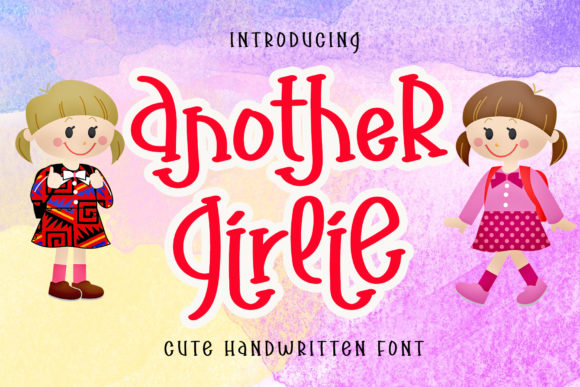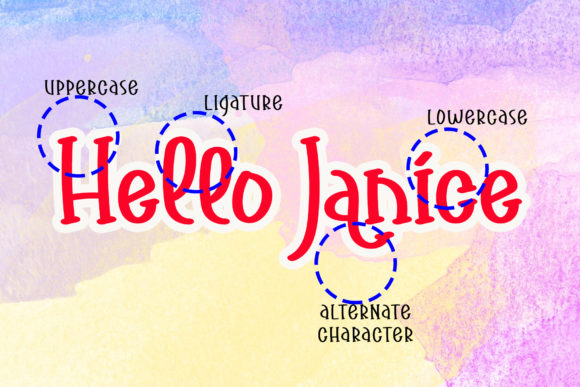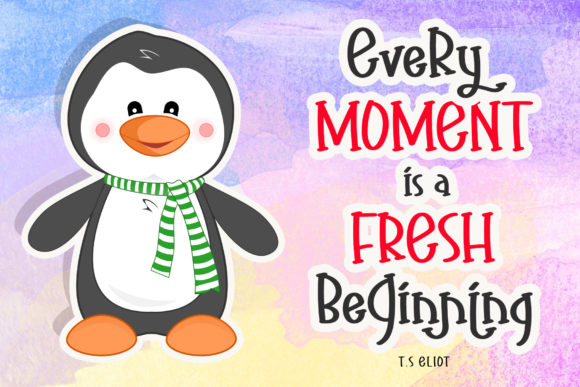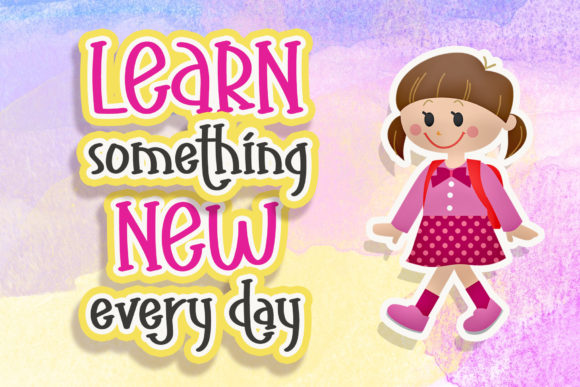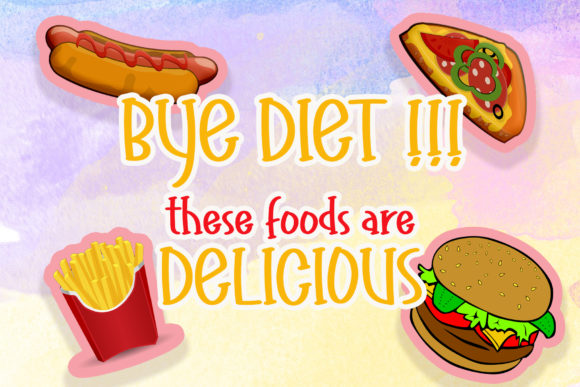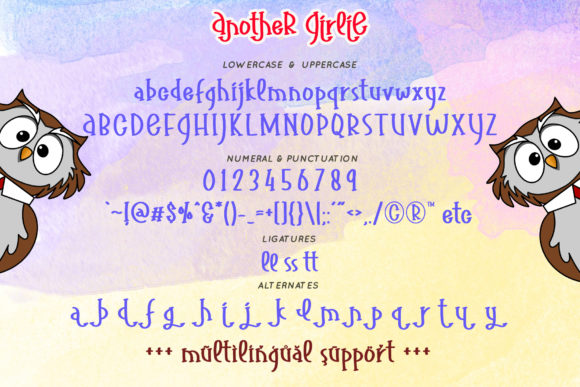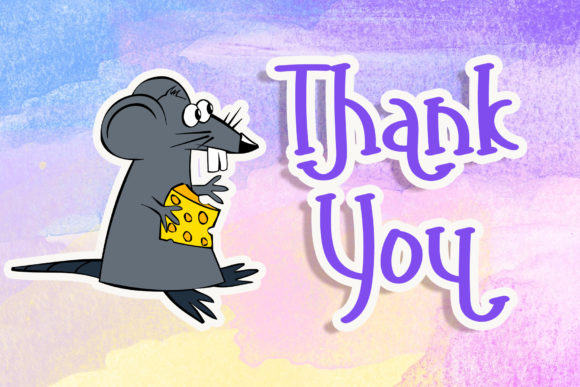
Another Girlie Font
About Another Girlie Font
Another Girlie is a sweet and playful handwritten font. Get creative with its unique playfulness, and use it to brighten up any crafting project!